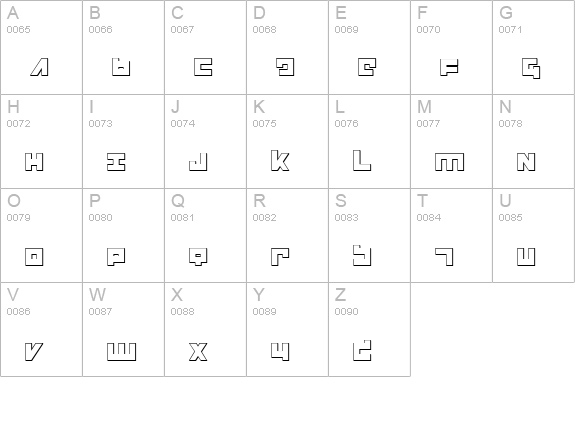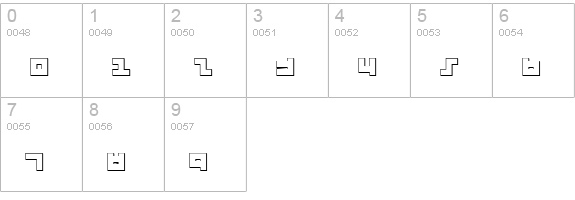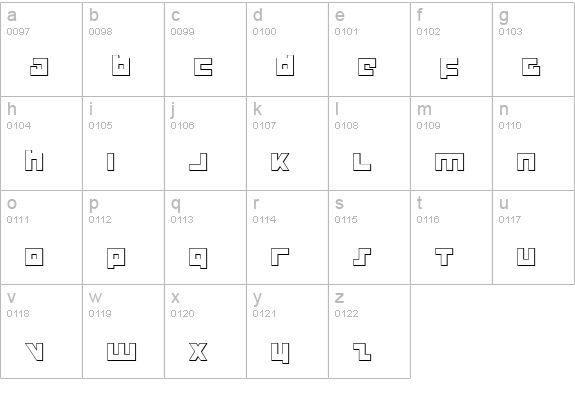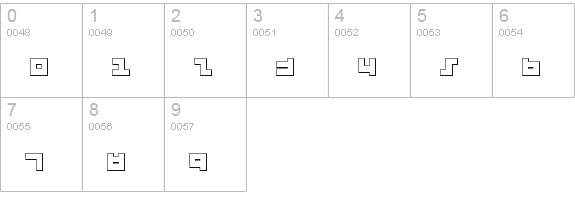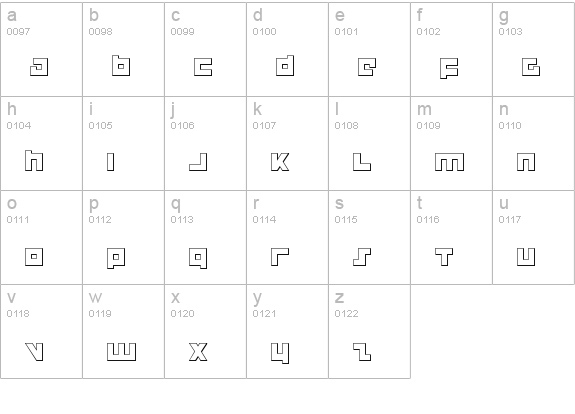
Flight Corps 3D font is a stunning display typeface that exudes a sense of power and sophistication. With its bold and futuristic design, this font is perfect for creating eye-catching headlines, posters, and logos. The three-dimensional effect adds depth and dimension to your text, making it stand out from the crowd. Best of all, Flight Corps 3D font is available for free download at FontsMarket.com. This means that you can easily access this unique and versatile font to elevate your design projects without any cost. Don't miss out on the opportunity to add a touch of modern flair to your creations with Flight Corps 3D font. Download it today and let your creativity take flight!